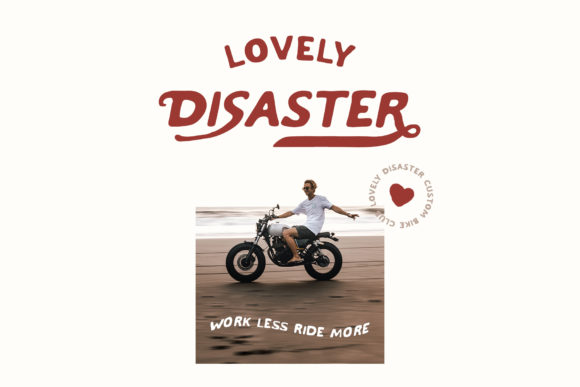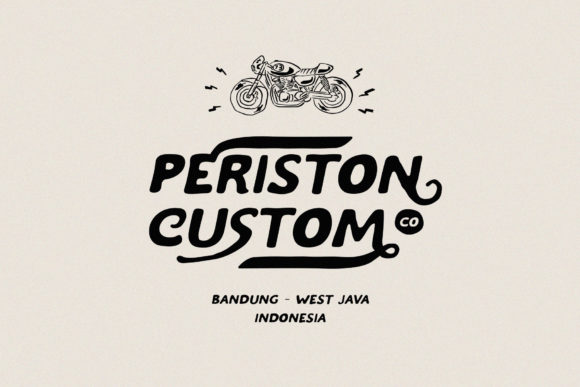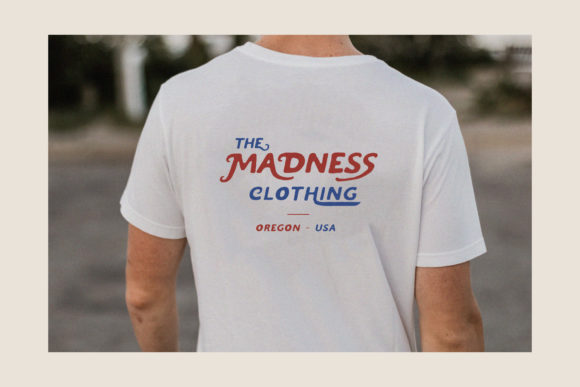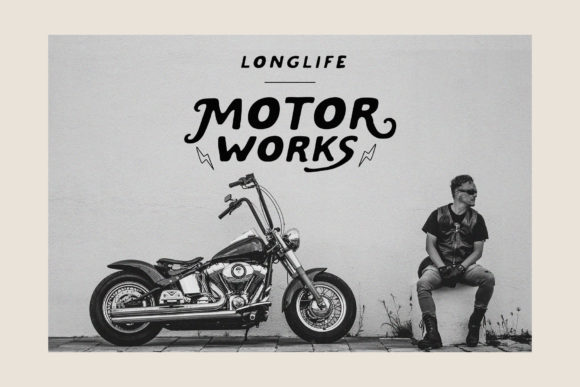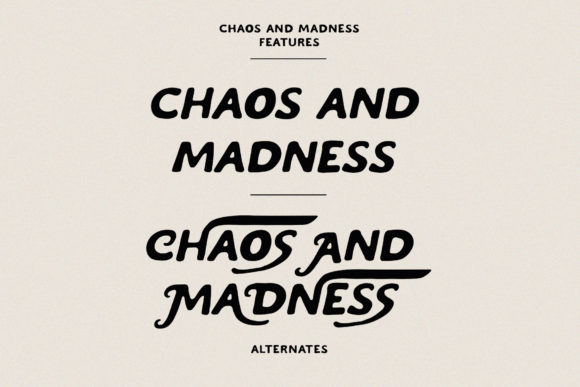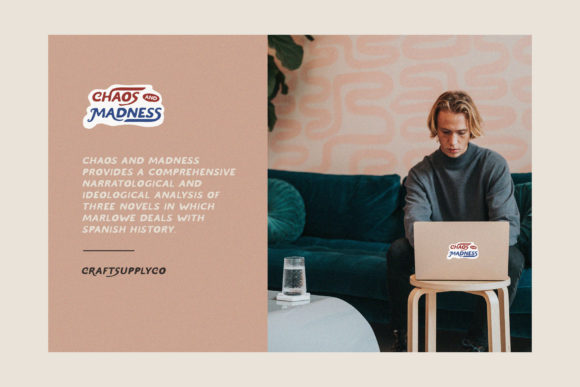
The Power of Unbridled Creativity
Have you ever been in the middle of a project, staring blankly at a blank canvas or a computer screen, with ideas swirling in your head but unable to translate them into something tangible? It’s that moment when you need a spark, a catalyst to set your imagination ablaze and unlock your full creative potential.
That’s where the Chaos and Madness Font comes in – a unique and captivating display font designed to unleash the full fury of your artistic expression. This font is more than just a tool; it’s a partner in crime, a collaborator that helps you bring your most daring and innovative ideas to life.
For designers, the Chaos and Madness Font is a valuable addition to their arsenal, offering a versatile and expressive way to convey complex emotions and ideas. Its beauty lies in its ability to evoke a sense of drama and unpredictability, making it perfect for those who crave a little bit of chaos in their creative endeavors.
Chaos and Madness Font Key Features
- Unique Characteristics: The font’s unique blend of distressed and handwritten elements creates a captivating, chaotic aesthetic, perfect for adding a touch of madness to designs.
Designer Review: Chaos and Madness Font
Overall, I found the Chaos and Madness Font to be an intriguing choice for designers looking to add a touch of edginess to their projects. Here’s what I liked and didn’t like about it:
- ✨ Unique letterforms: The font’s irregular shapes and varying line widths add a sense of dynamism and visual interest.
- ✨ High contrast: The bold and playful strokes make the font easy to read, even at smaller sizes.
- ✨ Expressive feel: The font’s unconventional design makes it perfect for projects that require a sense of rebellion or nonconformity.
- ⚠️ Limited legibility: While the font is high contrast, it can be challenging to read in certain situations, especially at larger sizes.
- ⚠️ Limited flexibility: The font’s bold, playful design makes it less suitable for projects that require a more refined or sophisticated look.
The Chaos and Madness Font is a great choice for designers who want to add a touch of rebelliousness to their projects. While it may not be the best choice for every project, it’s perfect for those that require a bold, attention-grabbing look.
The Chaos and Madness Font is perfect for:
Designing bold and attention-grabbing headlines.
Creating eye-catching social media graphics.
Adding a touch of personality to your branding and marketing materials.